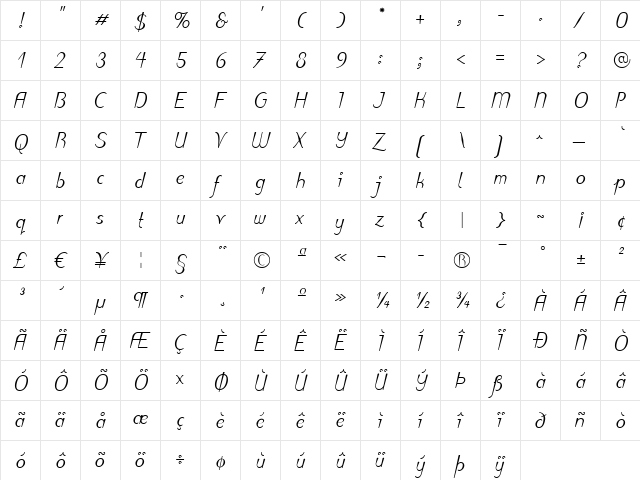
Puritas LT Medium Italic
Design Context for Puritas LT Typeface
Puritas LT is a composed and adaptable typeface that performs quietly and consistently across a wide range of design contexts. The slanted form adds forward momentum and visual energy. The delicate stroke weight brings airiness and refinement to layouts.
Pro Tip: Try Puritas LT for annotation and caption copy alongside an upright companion — the contrast in angle creates a dynamic but ordered typographic system.